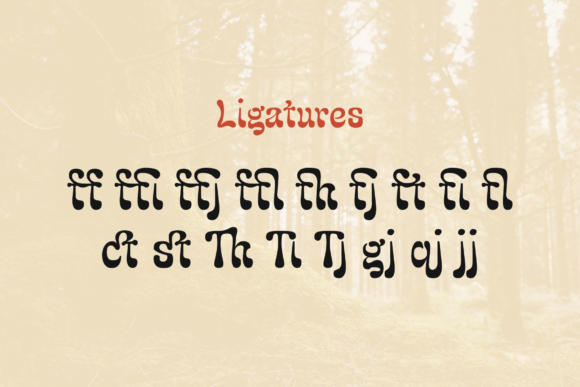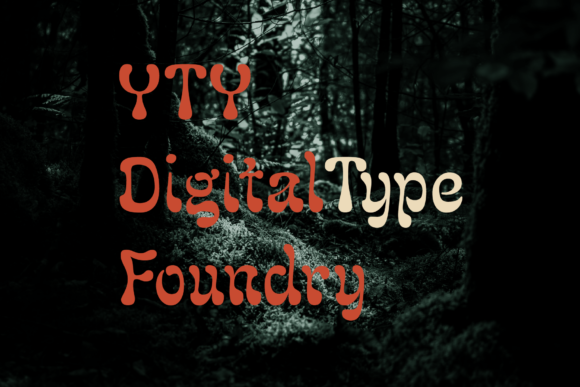
Introducing Alugu Font: Add a Playful Touch to Your Creations
Are you tired of using the same old fonts in your designs? Look no further than Alugu Font, a playful and whimsical display font that’s sure to add a trendy and cool touch to each of your creations. With its quirky and uniquely designed characters, Alugu Font is perfect for designers and crafters looking to add some personality to their work.
What Makes Alugu Font So Special?
Alugu Font is a one-of-a-kind display font that’s designed to make a statement. Its playful and whimsical design makes it perfect for use in a variety of projects, from bold headlines and titles to fun and quirky graphics. Whether you’re working on a branding project, a social media graphic, or a craft project, Alugu Font is sure to add a touch of personality and whimsy.
Key Features of Alugu Font
- Playful and Whimsical Design: Alugu Font features a unique and quirky design that’s sure to add a touch of personality to your creations.
- Display Font: Alugu Font is a display font, making it perfect for use in bold headlines, titles, and graphics.
- Trendy and Cool: With its modern and edgy design, Alugu Font is sure to add a trendy and cool touch to each of your creations.
- Unique Characters: Each character in Alugu Font is uniquely designed, making it perfect for use in projects where you want to stand out from the crowd.
Uses for Alugu Font
Alugu Font is a versatile font that can be used in a variety of projects, including:
- Branding Projects: Use Alugu Font to add a touch of personality to your brand’s logo, packaging, or marketing materials.
- Social Media Graphics: Add a playful touch to your social media graphics, such as Facebook posts, Instagram stories, and Twitter headers.
- Craft Projects: Use Alugu Font to add a personal touch to your craft projects, such as handmade cards, scrapbooking, and DIY signs.
- Web Design: Use Alugu Font to add a touch of whimsy to your website’s headlines, titles, and graphics.
Tips for Using Alugu Font
Here are a few tips for using Alugu Font in your projects:
- Use it as a Display Font: Alugu Font is designed to be used as a display font, so use it to add a touch of personality to your headlines, titles, and graphics.
- Experiment with Colors: Alugu Font looks great in a variety of colors, so don’t be afraid to experiment and find the perfect color to match your brand or project.
- Pair it with Other Fonts: Alugu Font pairs well with a variety of other fonts, so try pairing it with a serif or sans-serif font to add some contrast to your design.
Alugu Font is a playful and whimsical display font that’s sure to add a trendy and cool touch to each of your creations. With its quirky and uniquely designed characters, Alugu Font is perfect for designers and crafters looking to add some personality to their work. Whether you’re working on a branding project, a social media graphic, or a craft project, Alugu Font is sure to make a statement.